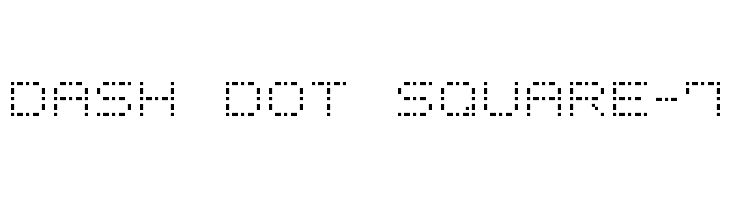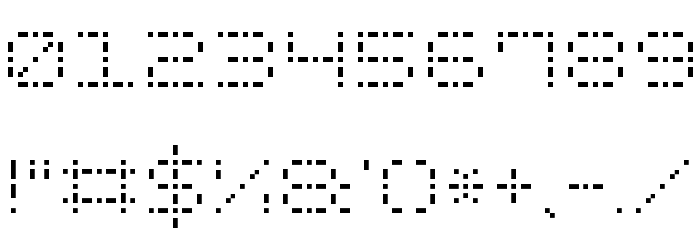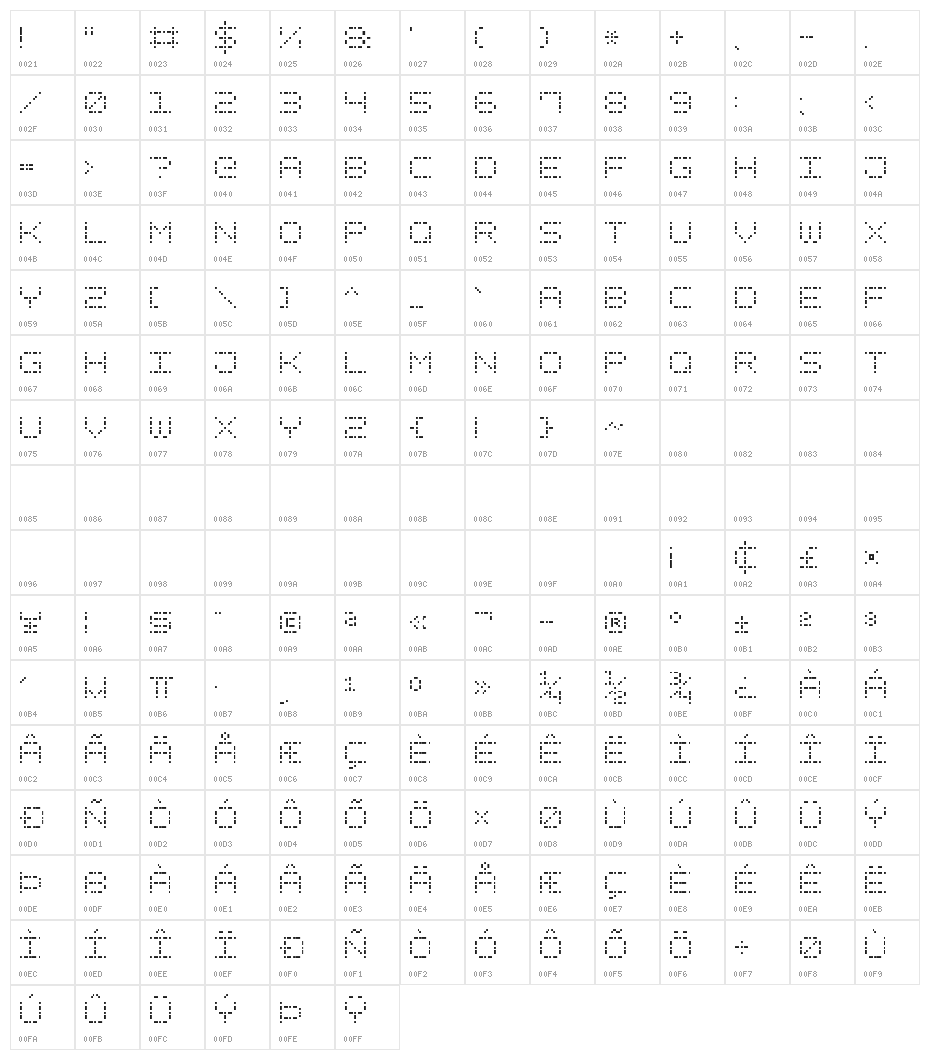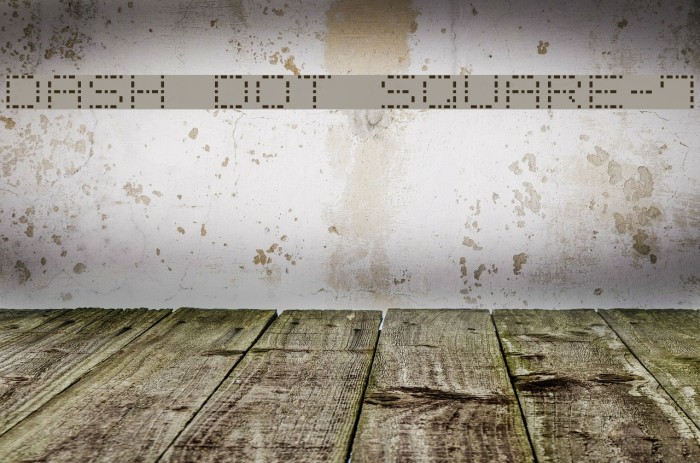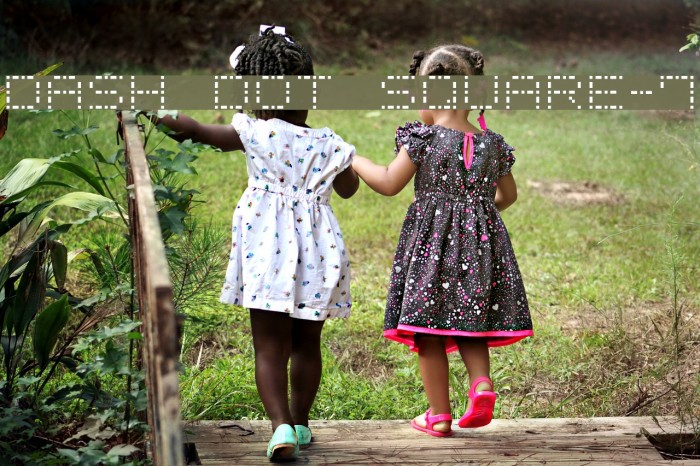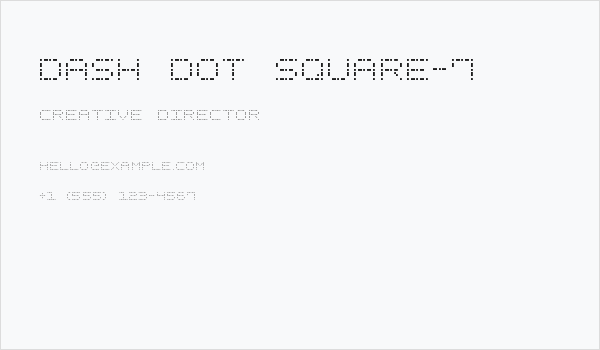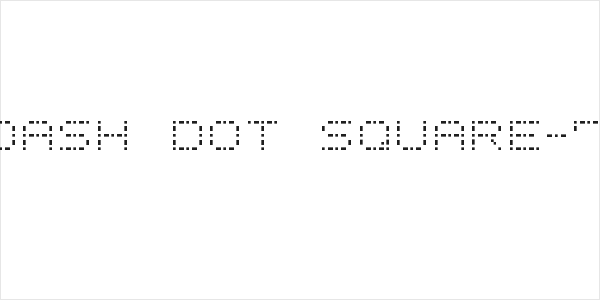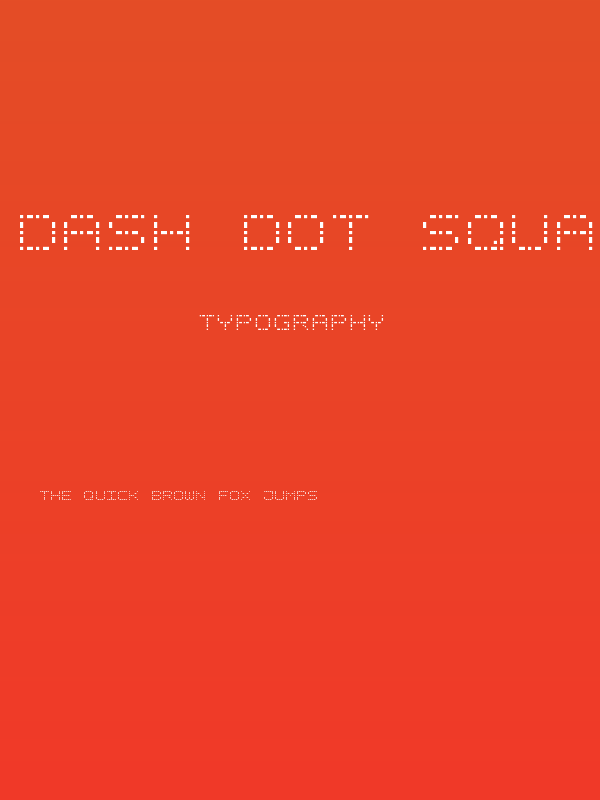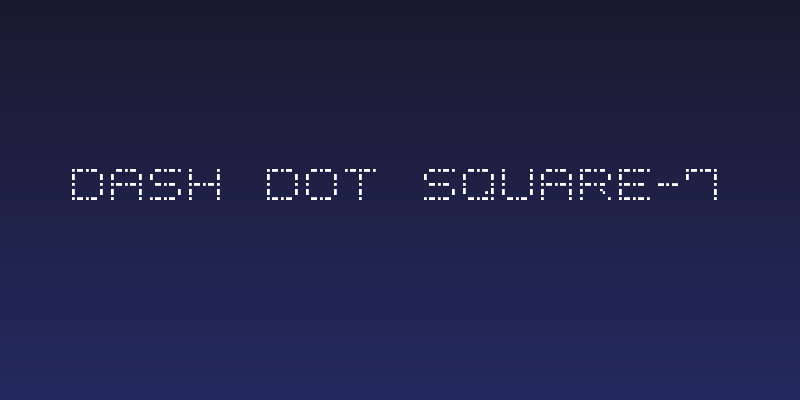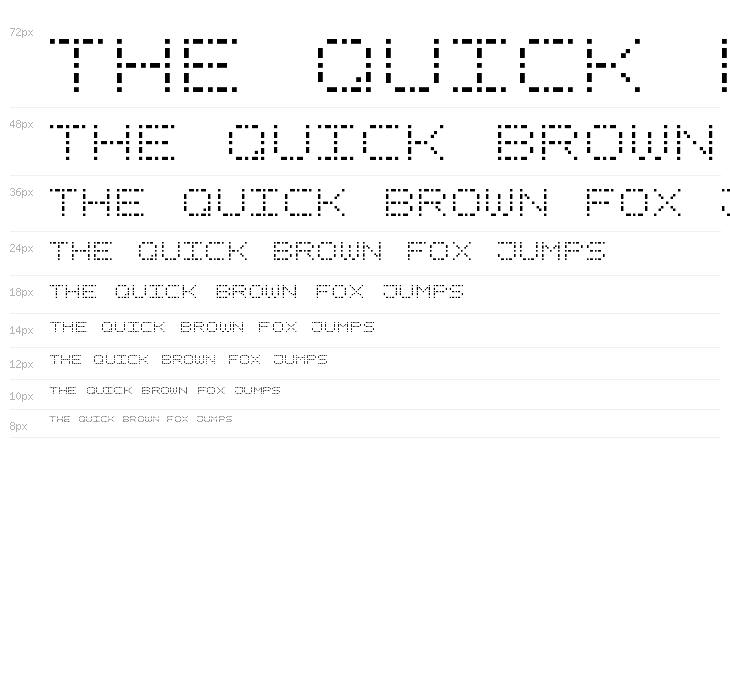
Dash Dot Square-7 Font
Dash Dot Square-7 Description
This font features a unique design where each character is composed of small, evenly spaced dots and dashes, creating a digital and modern appearance. The uppercase and lowercase letters maintain a consistent structure, with clear geometric shapes that are easily recognizable. The numbers and special characters follow the same dotted pattern, ensuring uniformity across all glyphs. This style gives the font a futuristic and technical feel, making it stand out in digital and tech-related contexts. The spacing between characters is normal, allowing for clear readability while maintaining its distinctive style.
| Use Case | Headlines, Logos, Digital displays |
| Proposed Projects | Ideal for digital displays, tech branding, futuristic designs, and any project requiring a modern, digital look. |